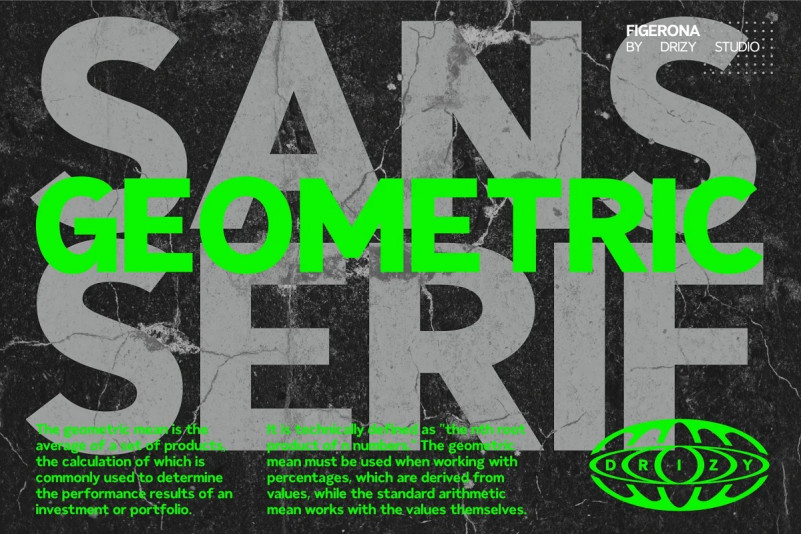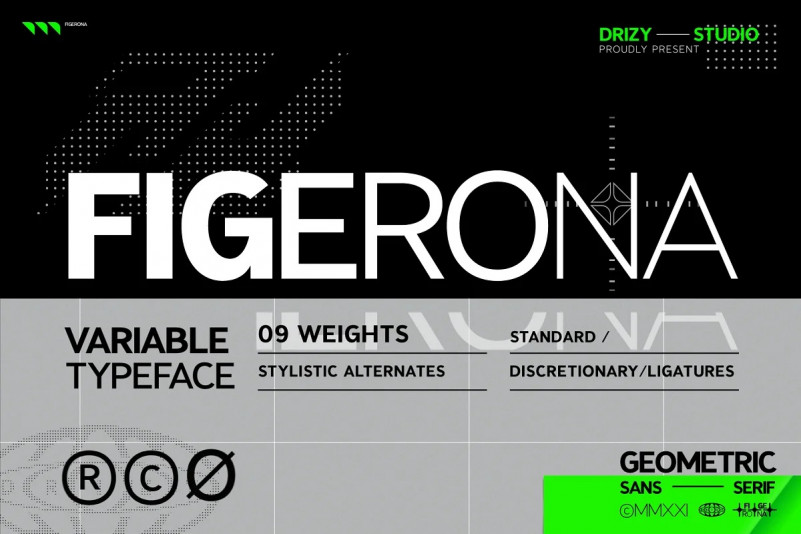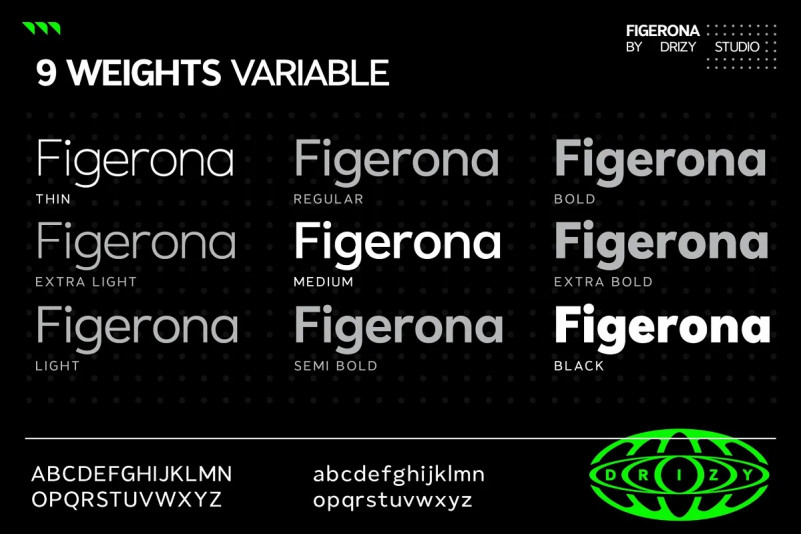
Figerona Font
Introducing Figerona Font Family is the modern Display sans serif family. Figerona Font family comes in various sizes from Thin to Black, giving you the freedom to get creative with this font. With strong characters in the size of Black, it is very suitable for use for sign displays and other sizes you can use as needed for your project.